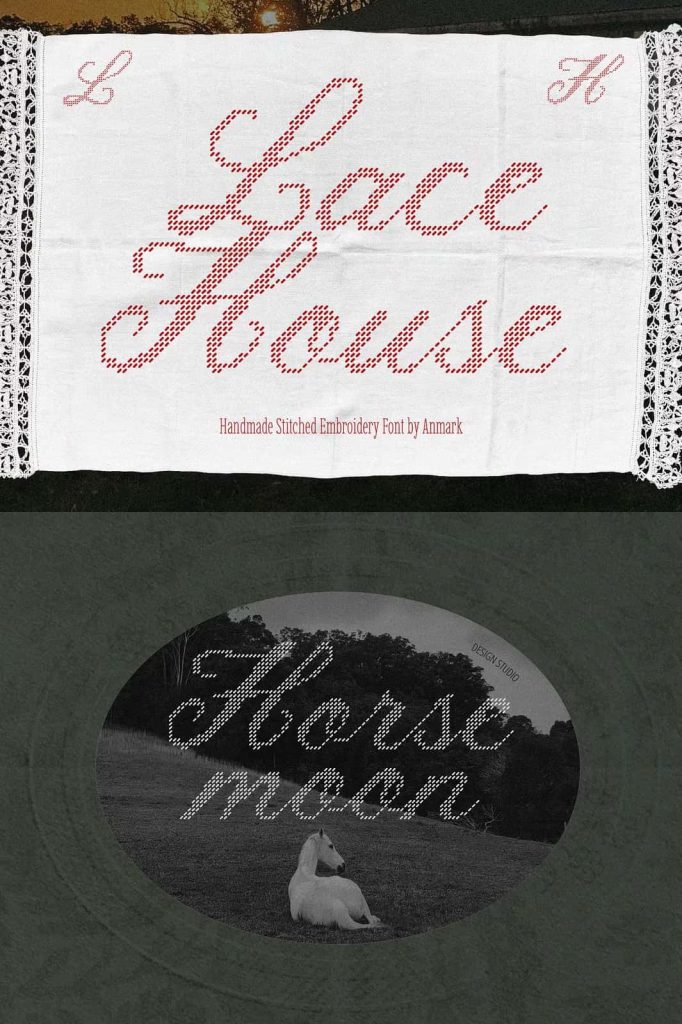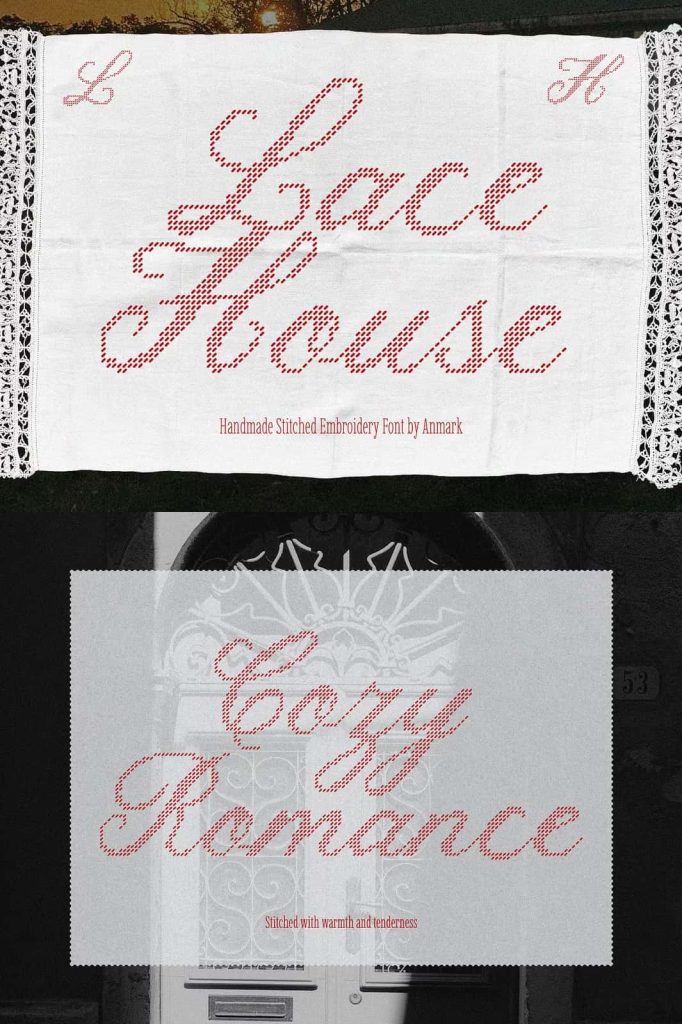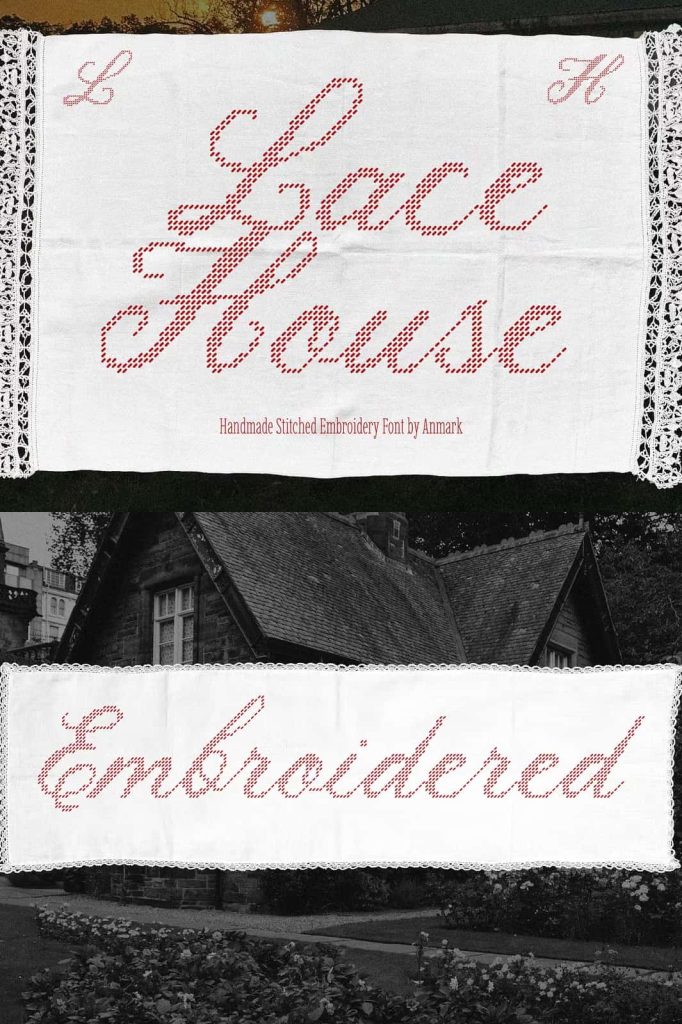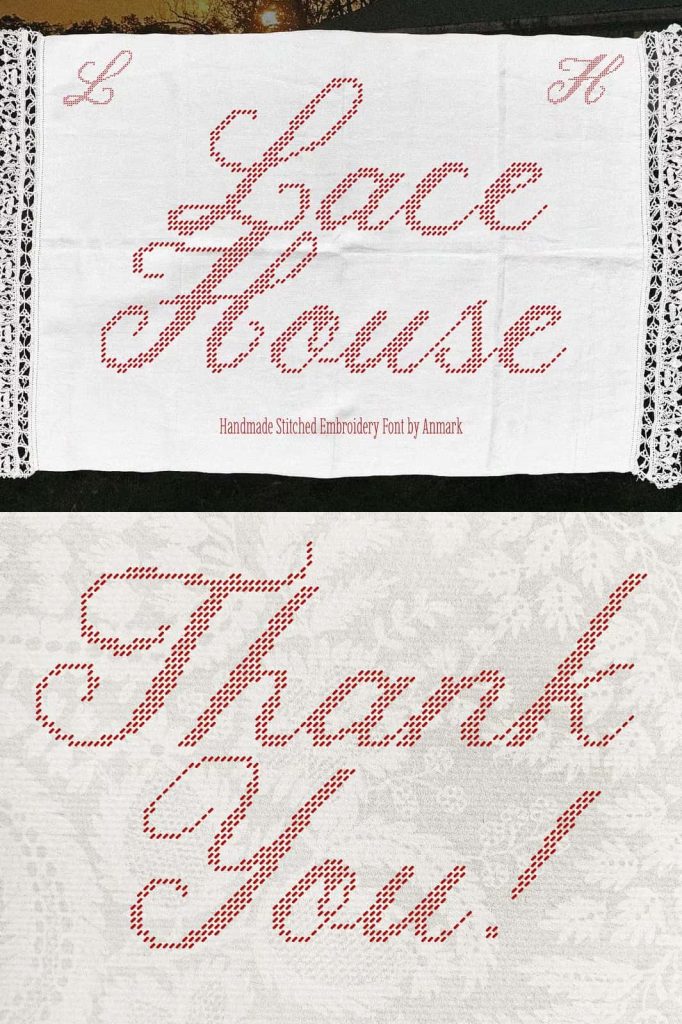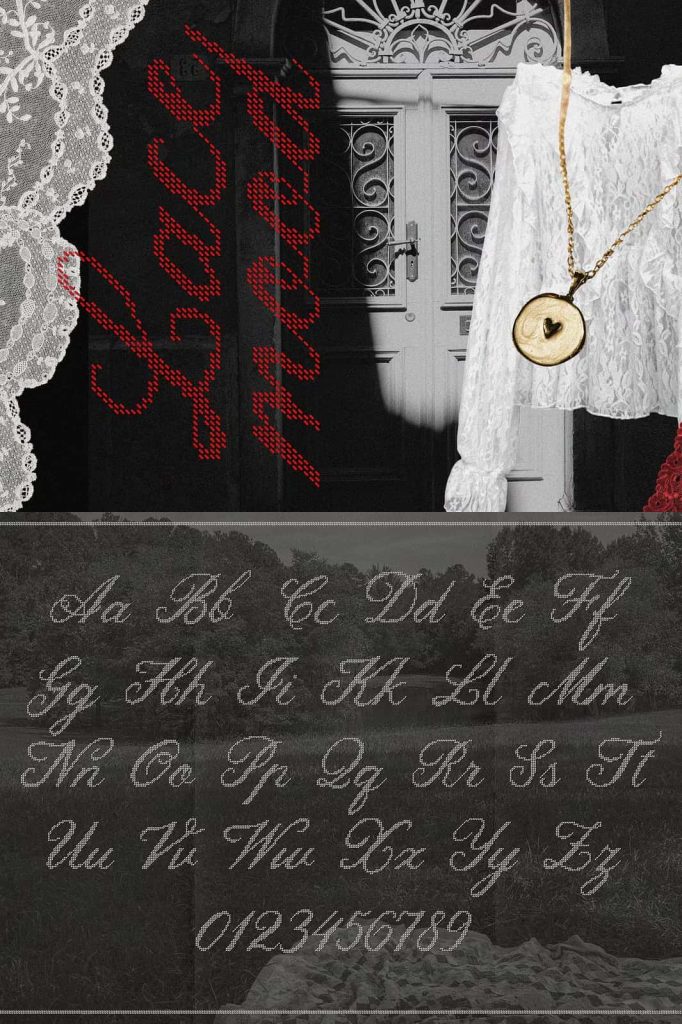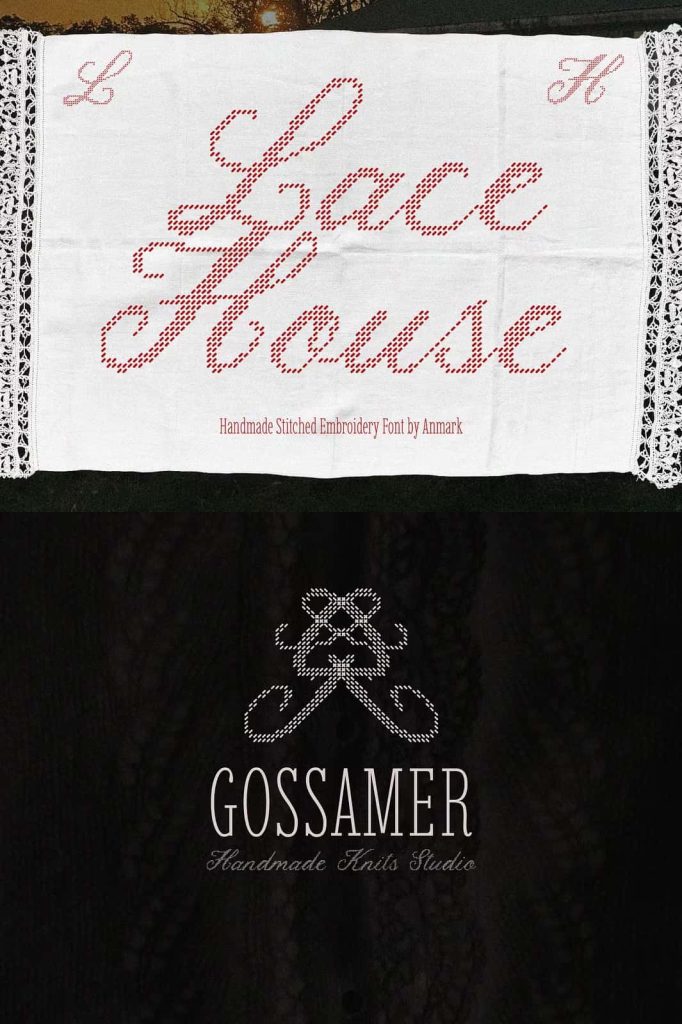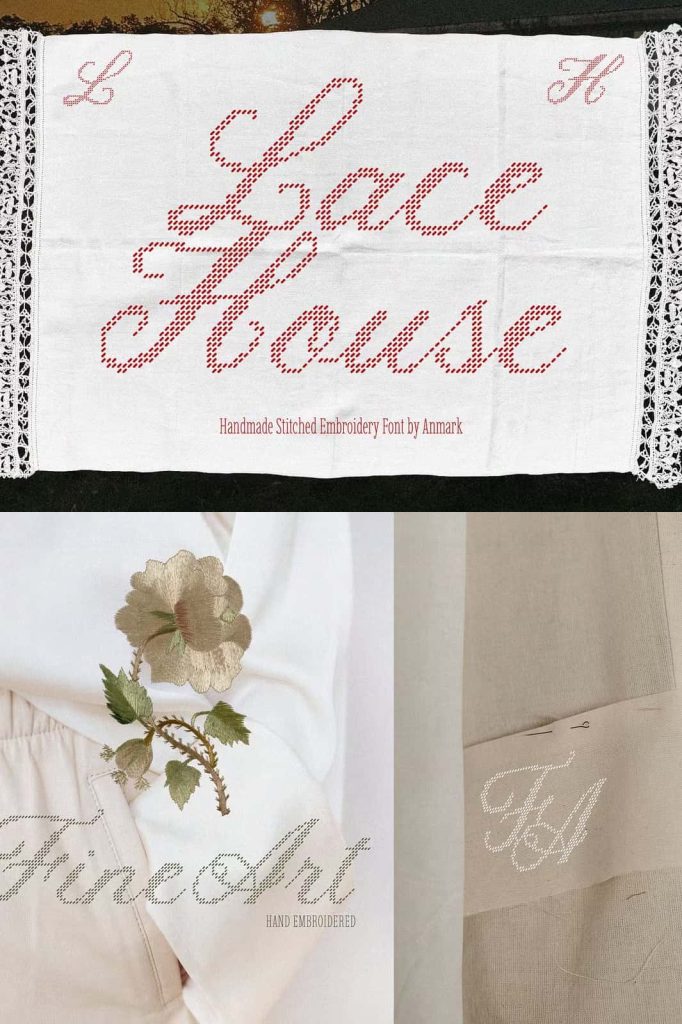
Lace House – A Delicate Stitched-Inspired Calligraphy Font
Lace House is a delicate stitched-inspired calligraphy font designed to bring the warmth, softness, and charm of handmade craftsmanship into modern typography. Inspired by embroidery textures and the gentle appearance of thread on fabric, this elegant typeface creates a tactile visual experience that feels carefully sewn rather than simply written.
Its graceful calligraphic character makes Lace House an excellent choice for projects that need a personal, feminine, handcrafted, or sophisticated touch. The font can transform simple words into decorative visual elements, helping designers create invitations, branding, packaging, stationery, apparel, social media graphics, and other creative projects with an unmistakably handmade personality.
Lace House captures the beauty of delicate textile details and translates that inspiration into expressive lettering. Its soft visual character works especially well when you want typography to feel warm, thoughtful, intimate, and artistic. Instead of relying on harsh or mechanical forms, Lace House creates a gentle impression that complements designs built around craftsmanship and detail.
Inspired by Embroidery and Handmade Craftsmanship
The visual inspiration behind Lace House comes from the traditional art of embroidery. Thread carefully woven through fabric creates subtle textures, delicate patterns, and handcrafted imperfections. Lace House channels that same feeling through its calligraphic letterforms.
The result gives your typography a tactile quality. Words can feel as though someone carefully stitched each character by hand, creating an intimate connection between the lettering and the design. This makes the font especially useful for projects where craftsmanship, care, and personal expression play an important role.
Use Lace House alongside fabric textures, floral illustrations, lace patterns, thread details, photographs, or soft decorative elements to reinforce its handmade character. You can also place it within a clean modern layout to create an elegant contrast between delicate lettering and contemporary design.
A Soft and Elegant Calligraphic Personality
Lace House brings a gentle personality to display typography. Its calligraphic influence creates a flowing visual rhythm that can make names, phrases, and short messages feel more expressive.
The font works particularly well when you want to create an emotional connection with your audience. Its handcrafted appearance can communicate warmth, care, romance, creativity, and attention to detail without overwhelming the rest of the composition.
Use Lace House for prominent words and short phrases where the lettering can take center stage. Allow enough space around the typography so its delicate qualities remain visible and the composition feels light and refined.
Perfect for Wedding Invitations and Stationery
Lace House naturally suits wedding and event stationery. Its delicate calligraphic character can add an elegant handmade quality to invitations, save-the-date cards, menus, place cards, thank-you notes, and other wedding materials.
Use the font for names, wedding dates, headings, romantic phrases, or decorative details. Pair it with a simple serif or clean sans serif for supporting information, creating a balanced hierarchy between expressive lettering and practical text.
The stitched-inspired character can also complement wedding themes built around lace, embroidery, florals, handmade paper, textiles, and other handcrafted details. It works particularly well when the typography needs to feel personal rather than overly formal.
Bring Handmade Charm to Branding
Lace House can help brands establish a warm and distinctive visual identity. Its handcrafted character works especially well for businesses that emphasize creativity, craftsmanship, beauty, personal service, and artisanal products.
Use it for logos, wordmarks, brand signatures, packaging, product labels, promotional materials, and social media graphics. The font can add personality to boutique brands, handmade businesses, creative studios, textile companies, stationery brands, floral businesses, and lifestyle products.
For a complete identity, combine Lace House with a clean supporting typeface. Let the calligraphy create the emotional character while the secondary font handles practical information. This strategy keeps the branding elegant and readable across different applications.
Ideal for Packaging and Product Labels
Packaging gives Lace House another opportunity to showcase its handcrafted personality. Use the font for product names, collection titles, flavor names, labels, taglines, or decorative packaging elements.
It works especially well for handmade and boutique products such as candles, soaps, stationery, textiles, gifts, beauty products, craft goods, and specialty items. The stitched-inspired aesthetic can reinforce the idea that a product has received personal attention and careful craftsmanship.
Choose Lace House when you want typography that feels warm, tactile, delicate, and personal. Let its calligraphic character bring the beauty of handmade craftsmanship into your next creative project.